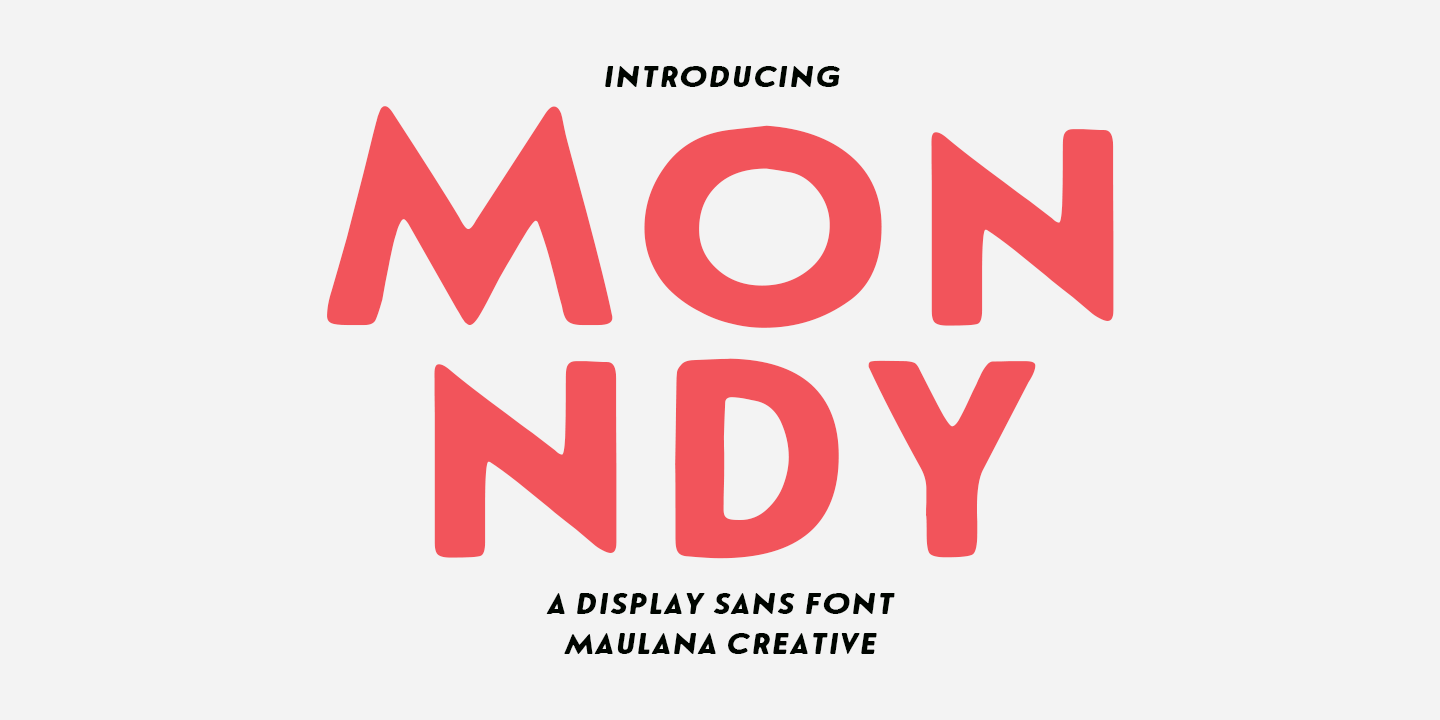
MC Monndy Font is perfect for trendy design projects including youth-oriented brands, modern lifestyle blogs, creative startup logos, contemporary fashion labels, social media campaigns, millennial-targeted marketing, innovative tech products, trendsetting retail brands, dynamic event graphics, and forward-thinking digital platforms that require fresh, contemporary typography with youthful energy and modern appeal.
What makes MC Monndy Font so exciting is its unique fusion of playful creativity with professional sophistication that perfectly captures the spirit of contemporary design trends while maintaining exceptional functionality across digital and print media. This vibrant typeface features distinctive character shapes, optimized letter spacing, and modern design elements that convey innovation and creativity, making it ideal for brands seeking to connect with younger demographics and trend-conscious audiences.
MC Monndy Font typically includes comprehensive font families with light, regular, medium, bold, and black weights, plus matching italic styles, condensed variations, and extended character sets, providing designers with complete flexibility to create dynamic brand identities and establish clear visual hierarchies for contemporary applications.
This dynamic MC Monndy Font Free Download offers creative professionals an exceptional foundation for projects requiring modern aesthetic appeal and youthful energy. Whether you're developing millennial-focused branding, contemporary digital platforms, or trendsetting marketing materials, this font delivers distinctive character while ensuring clear communication and broad accessibility. The contemporary design elements and versatile weight range make it particularly valuable for startups, lifestyle brands, and innovative companies seeking to communicate creativity, modernity, and forward-thinking approaches through typography that resonates with younger audiences and establishes strong contemporary brand presence in competitive markets.